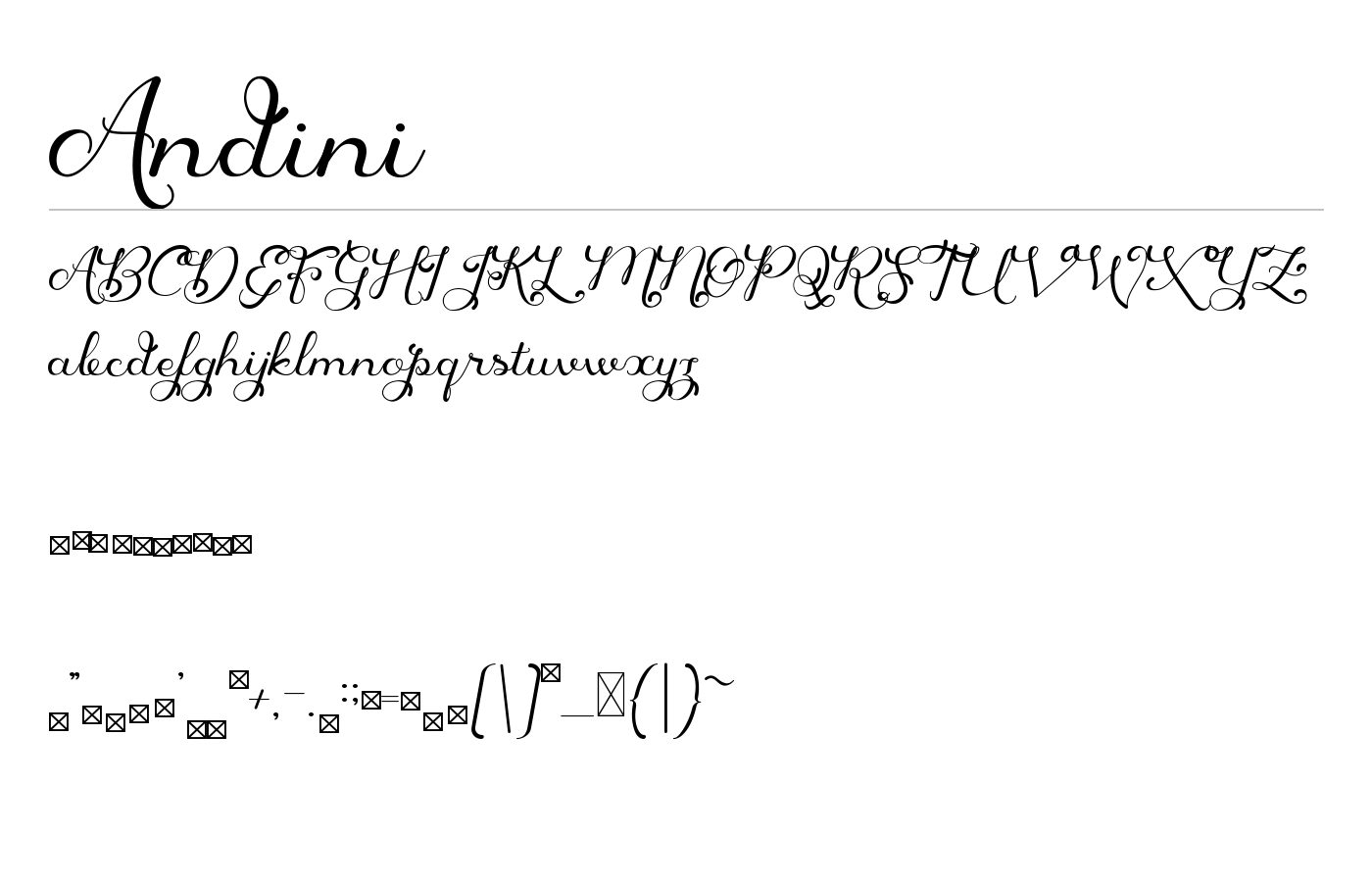
Andini is an elegant script font characterized by its delicate, flowing strokes and intricate swashes, creating a refined and decorative appearance. Its high contrast and graceful curves bring a luxurious, vintage charm that works perfectly for invitations, branding, and designs needing a sophisticated and feminine touch. This font shines in headlines and logos where its ornamental style can truly stand out and add a sense of beauty and elegance.
About Andini Font
| Designer | Yesie Erma Yunita |